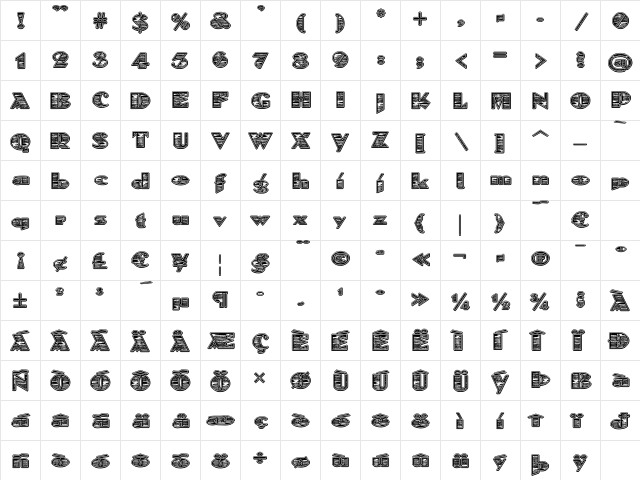
SkuareNot 'BongoWood' Regular
Design Context for SkuareNot 'BongoWood' Typeface
SkuareNot 'BongoWood' taps into classic Western woodtype traditions — bold, characterful, and impossible to ignore.
A natural fit for craft spirits, ranch branding, rodeo events, and Americana-inspired design work.
Font Pairing: Combine SkuareNot 'BongoWood' with a simple slab or neutral sans — period-accurate companions reinforce the vintage feel without competing for attention.
Pro Tip: Use SkuareNot 'BongoWood' for short, impactful bursts of text — it shines in poster headlines and product names rather than extended copy.